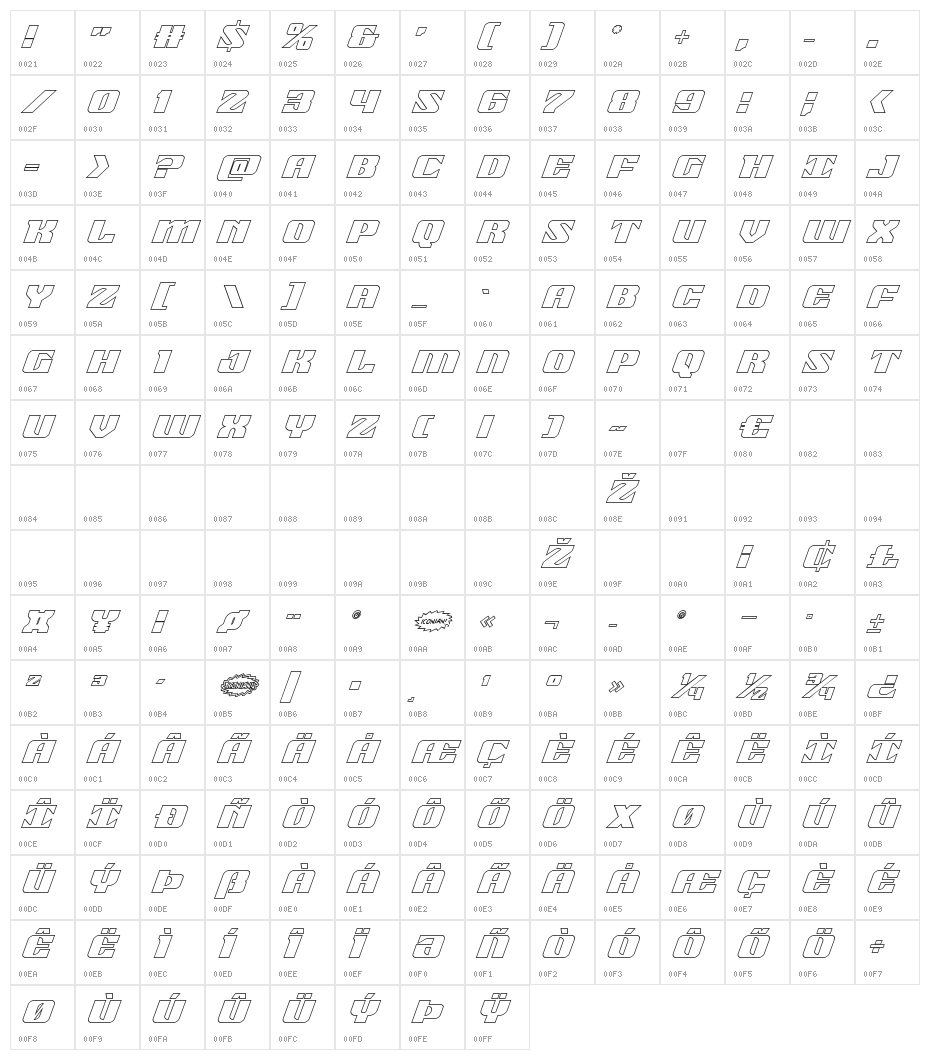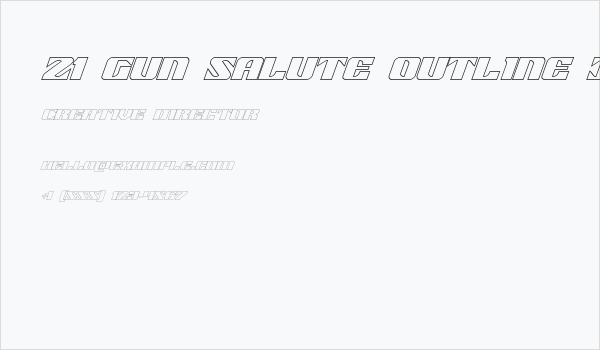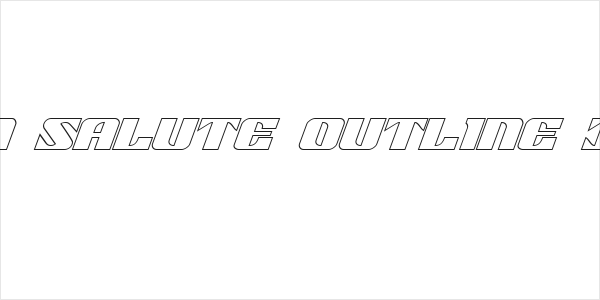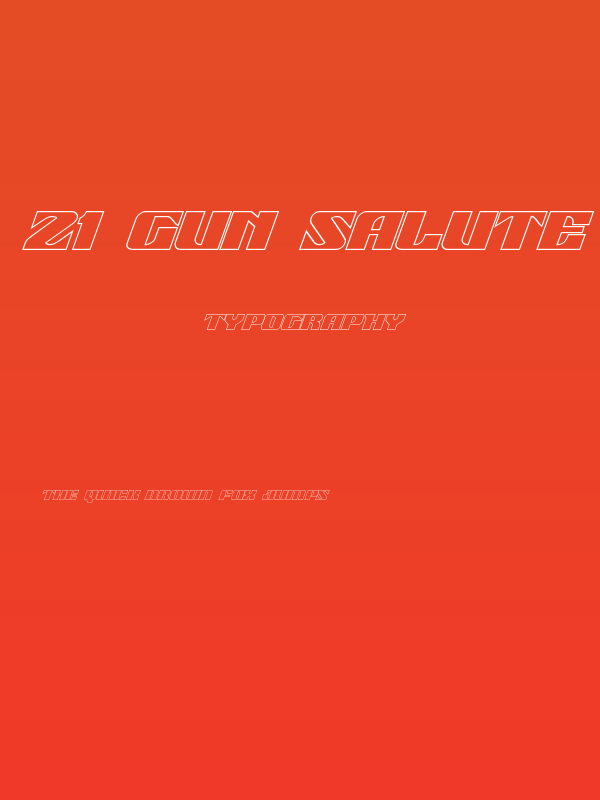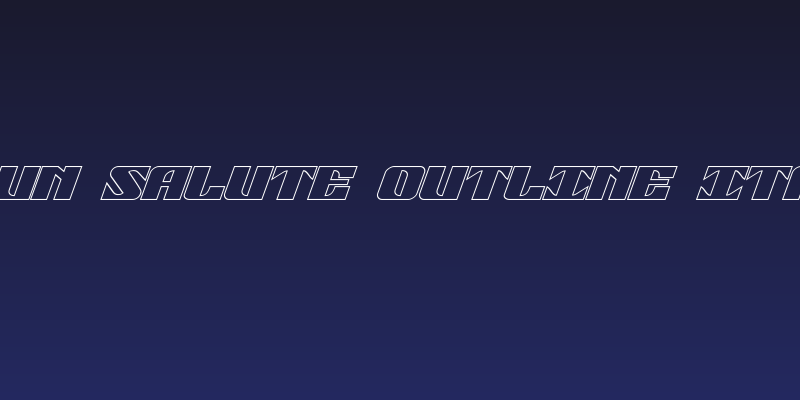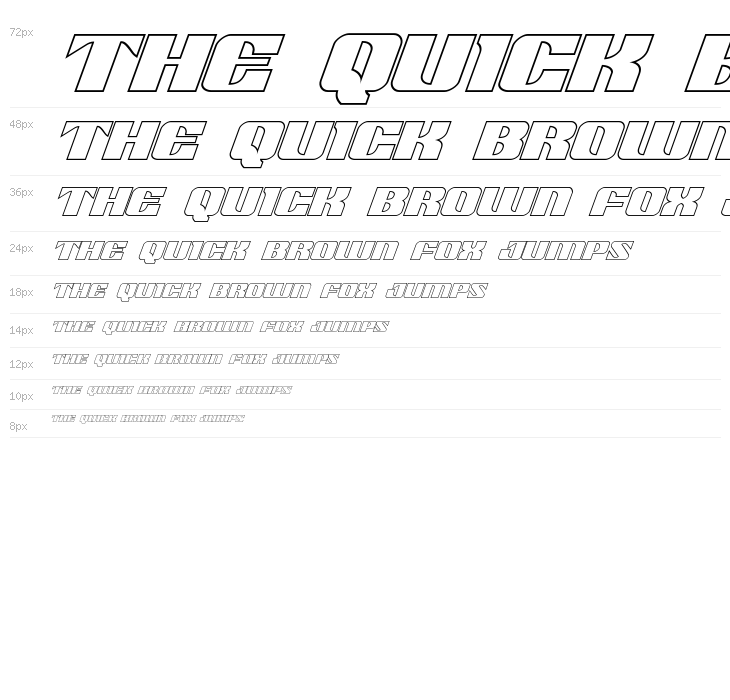
21 Gun Salute Outline Italic Font
21 Gun Salute Outline Italic Description
This font features a bold, italicized outline style that gives it a dynamic and modern appearance. The characters are designed with a strong geometric influence, featuring sharp angles and clean lines. The outline effect adds a sense of depth and dimension, making the font stand out in any design. The uppercase and lowercase letters maintain a consistent style, with the same angular and bold characteristics. Numbers and special characters are also included, following the same design principles. This font is ideal for projects that require a striking and contemporary look.